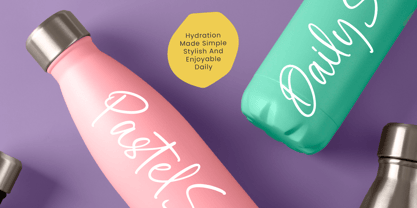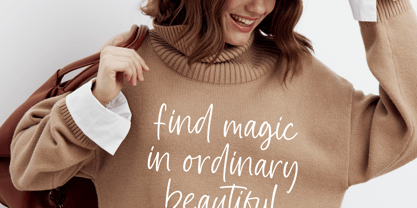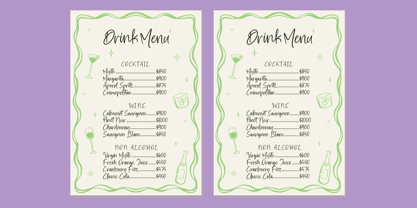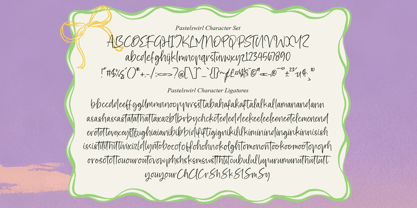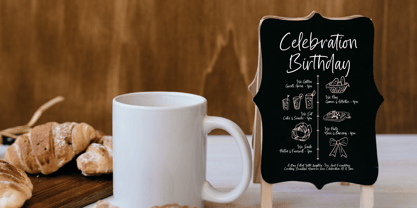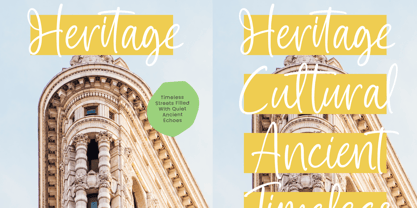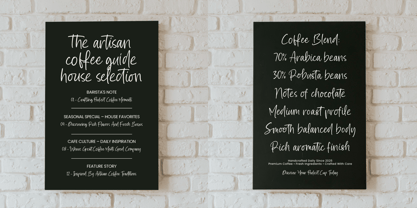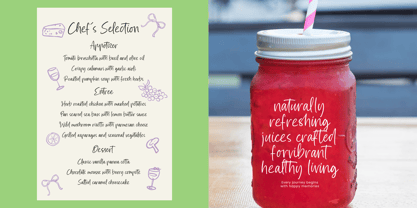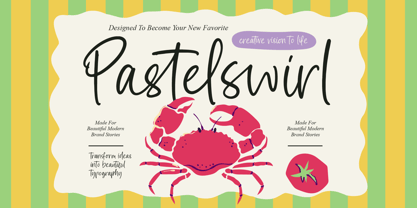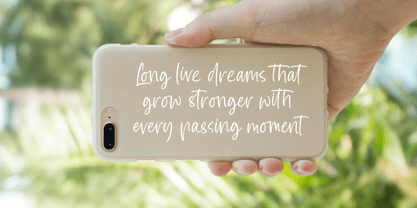
Pastelswirl
La famille de polices Pastelswirl a été conçue par Heru Utama Putra et publiée par Stylishtype Studio. Pastelswirl contient 2 styles et options de package familial. En savoir plus sur cette famille
Elevate your creative vision with a touch of authentic personality and effortless charm. Pastelswirl - Casual Handwritten Script Font captures the essence of fluid, hand-drawn artistry, offering a dynamic rhythm that breathes life into any layout. Its organic strokes and lighthearted aesthetic provide a refreshing alternative to rigid typefaces, ensuring your message feels both intimate and professional.
Perfect for projects that demand a personal and approachable aesthetic, Pastelswirl - Casual Handwritten Script Font is the ultimate choice for lifestyle branding and boutique identity design. This versatile typeface is perfect for modern packaging, social media storytelling, and editorial layouts where a sense of human touch is required. Whether you are crafting high-end invitation suites or vibrant promotional posters, it delivers an unmatched level of visual engagement.